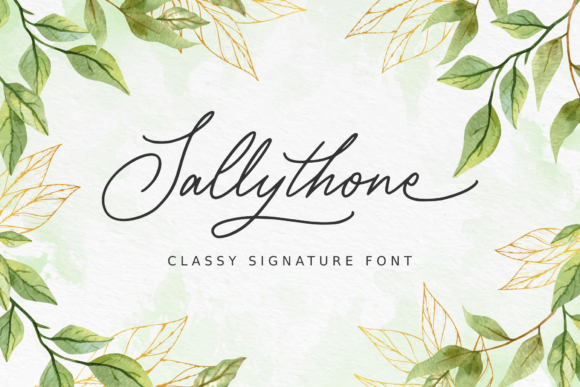
Discover Sallythone Font - The Quintessential Essence of Elegance and Boldness
Step into a world of captivating aesthetics with Sallythone, a script font that exudes artistry and individuality like no other. Inspired by the allure of tattoo script, this font is a masterpiece crafted to ignite your creativity and elevate your designs to new heights.
Sallythone, with its intricate curves and stunning ligatures, effortlessly captures the essence of timeless elegance. Each letter dances across the page with a graceful fluidity, evoking a sense of enchantment and intrigue. Whether you're crafting branding projects, creating personalized invitation cards, designing captivating websites, or exploring your passion for hand-lettering, Sallythone is your perfect companion.
Unleash the boundless potential of Sallythone, a font that harmoniously blends classic beauty with contemporary flair. Its versatility knows no limits, allowing you to effortlessly adapt it to a myriad of creative endeavors. From elegant logos that exude professionalism to captivating headlines that demand attention, Sallythone effortlessly transforms your designs into masterpieces.
But Sallythone is more than just a font; it's an artistic journey waiting to be embarked upon. Its PUA encoding unlocks a treasure trove of glyphs and swashes, empowering you to infuse your designs with intricate details and breathtaking flourishes. With ease and precision, you can incorporate these elements into your creations, adding an extra layer of depth and sophistication.
Immerse yourself in the world of Sallythone and let your imagination run wild. Embrace the allure of its enchanting curves, marvel at its delicate ligatures, and unlock the boundless possibilities it holds. Experience the transformative power of Sallythone and watch as your designs blossom into works of art.